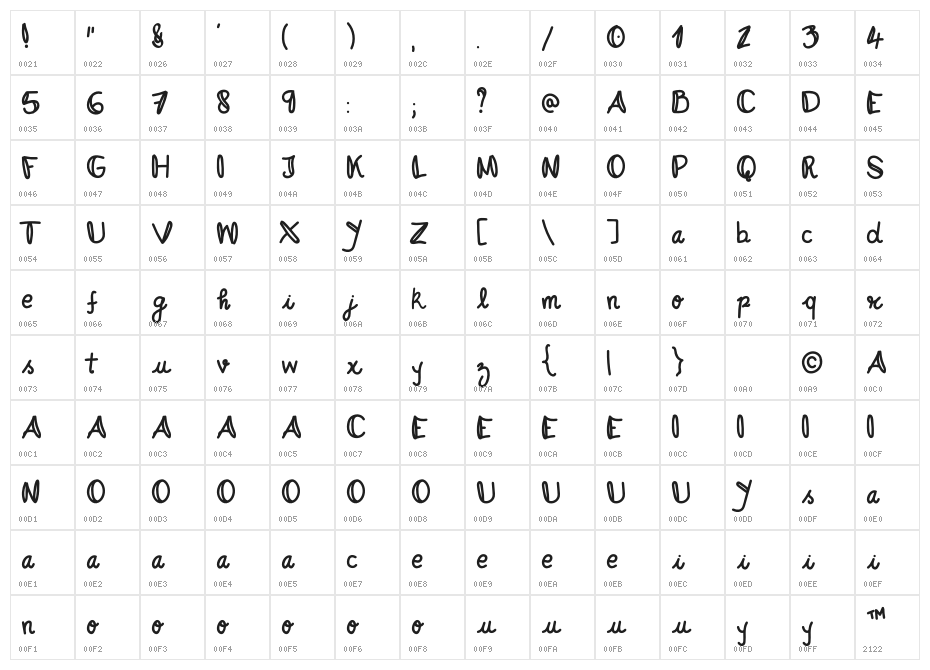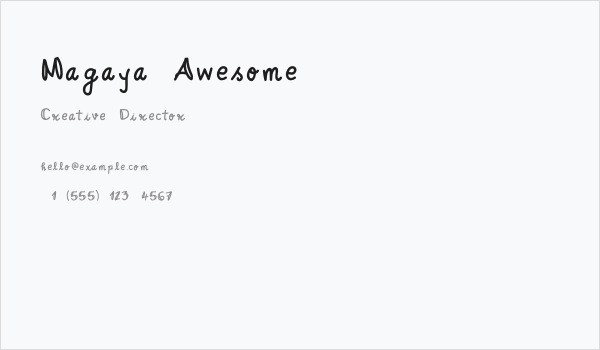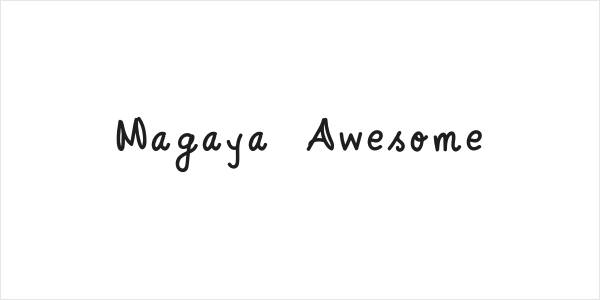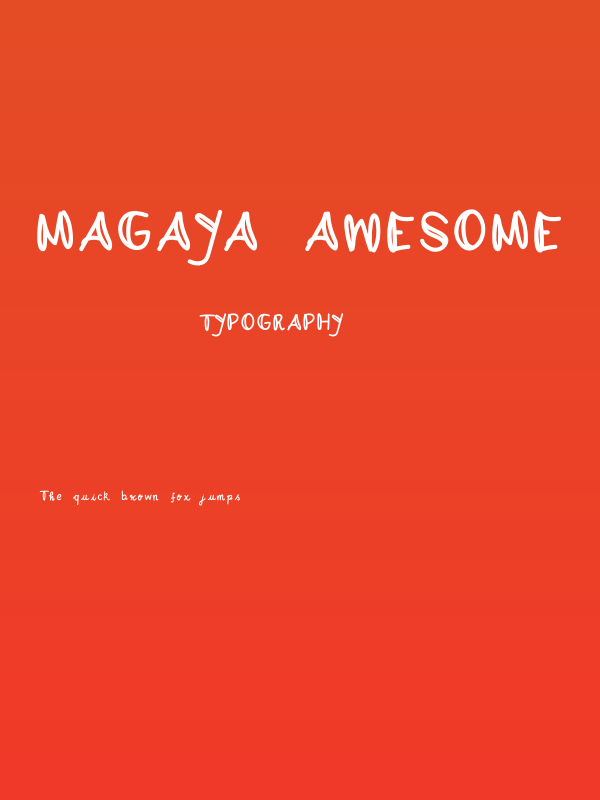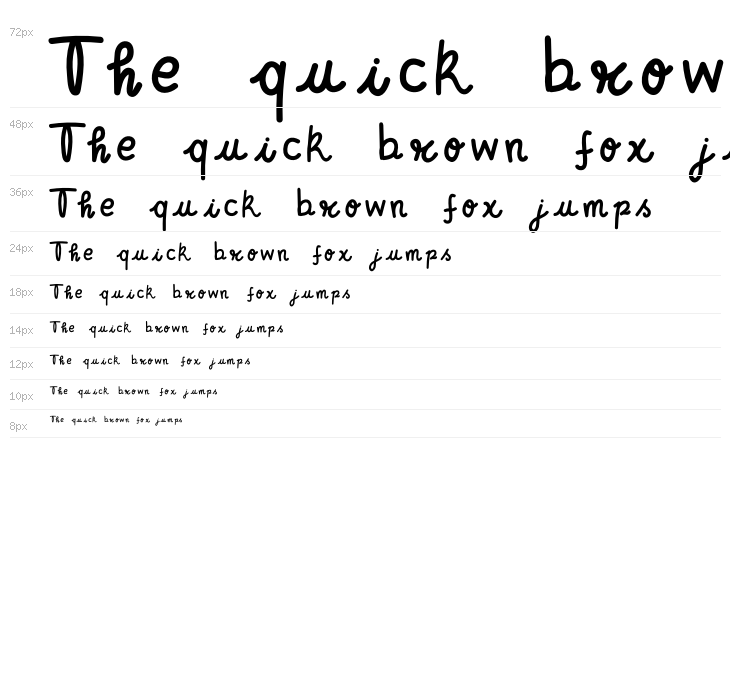
Magaya Awesome Font
Magaya Awesome Description
This font features a playful and casual handwritten style, characterized by its fluid and dynamic strokes. The letters have a whimsical quality, with varying thickness that adds a sense of movement and personality. The uppercase letters maintain a consistent height, while the lowercase letters exhibit a charming irregularity. Numbers and special characters follow the same lively aesthetic, making them suitable for informal and creative applications. The overall appearance is friendly and approachable, ideal for projects that require a personal touch.
| Proposed Projects | Ideal for greeting cards, invitations, children's books, and creative branding projects. |